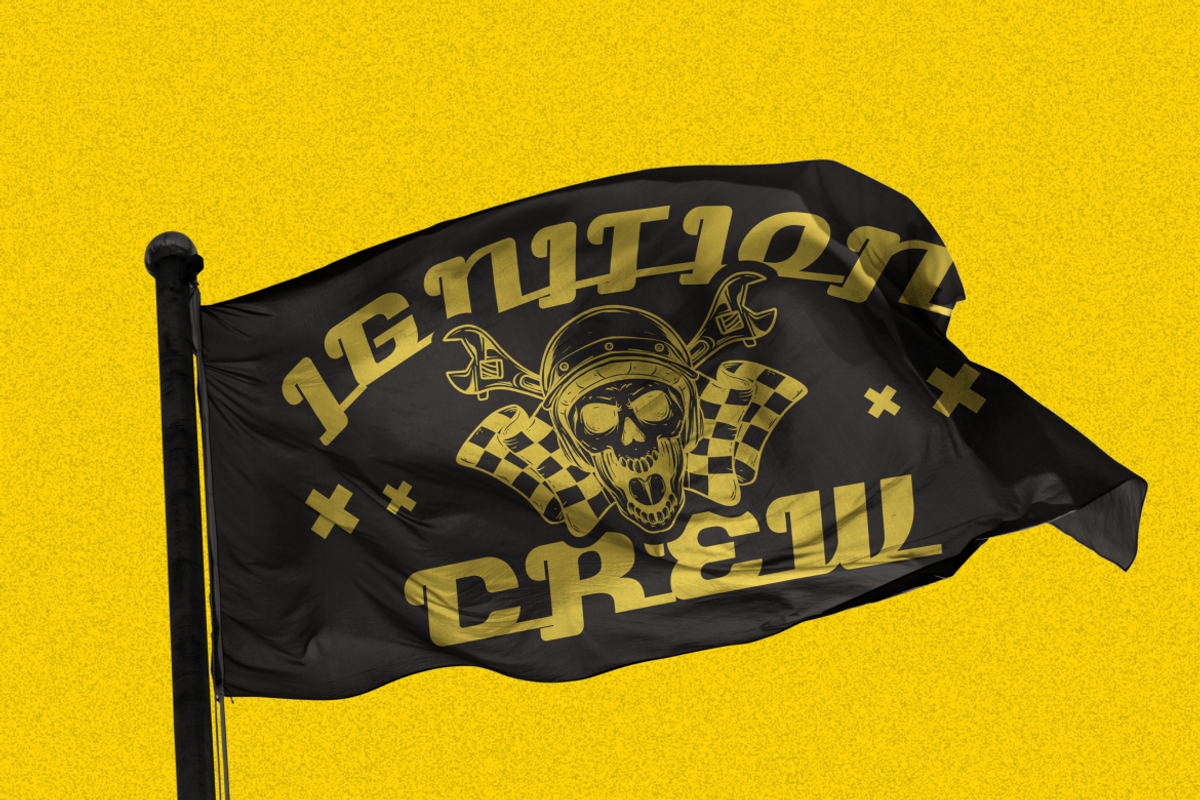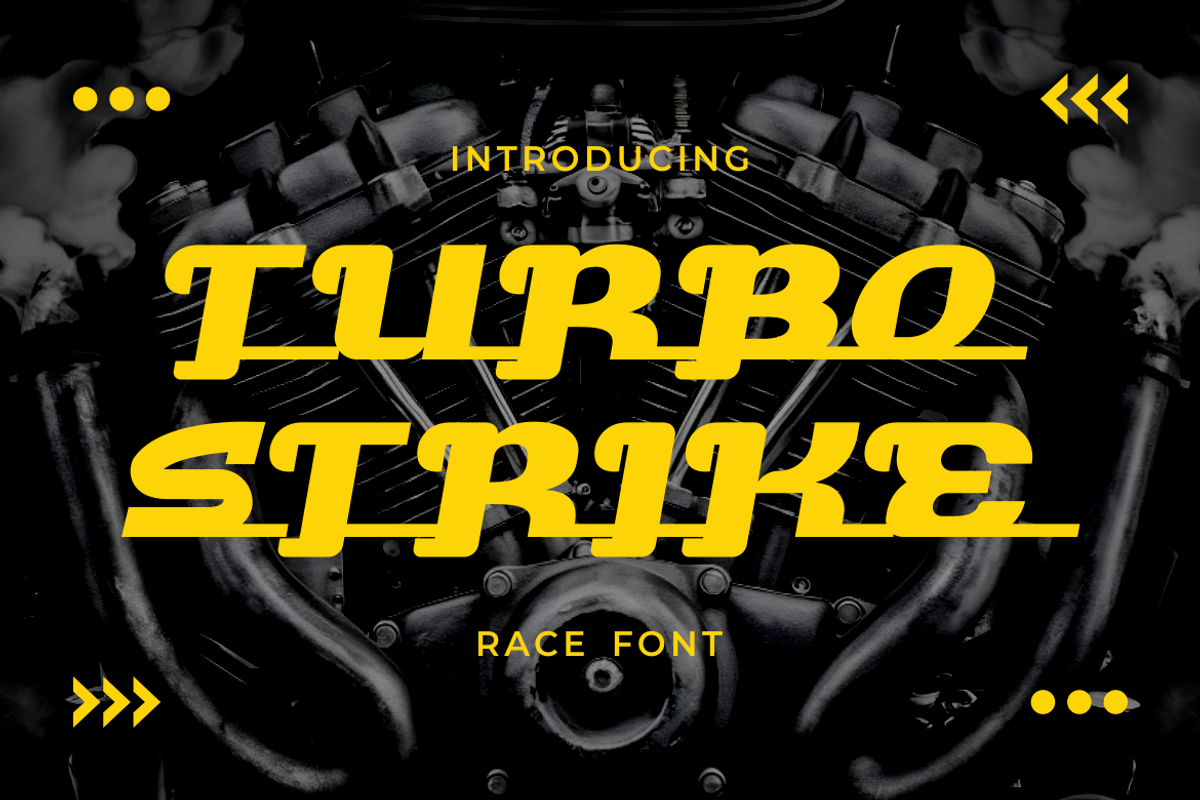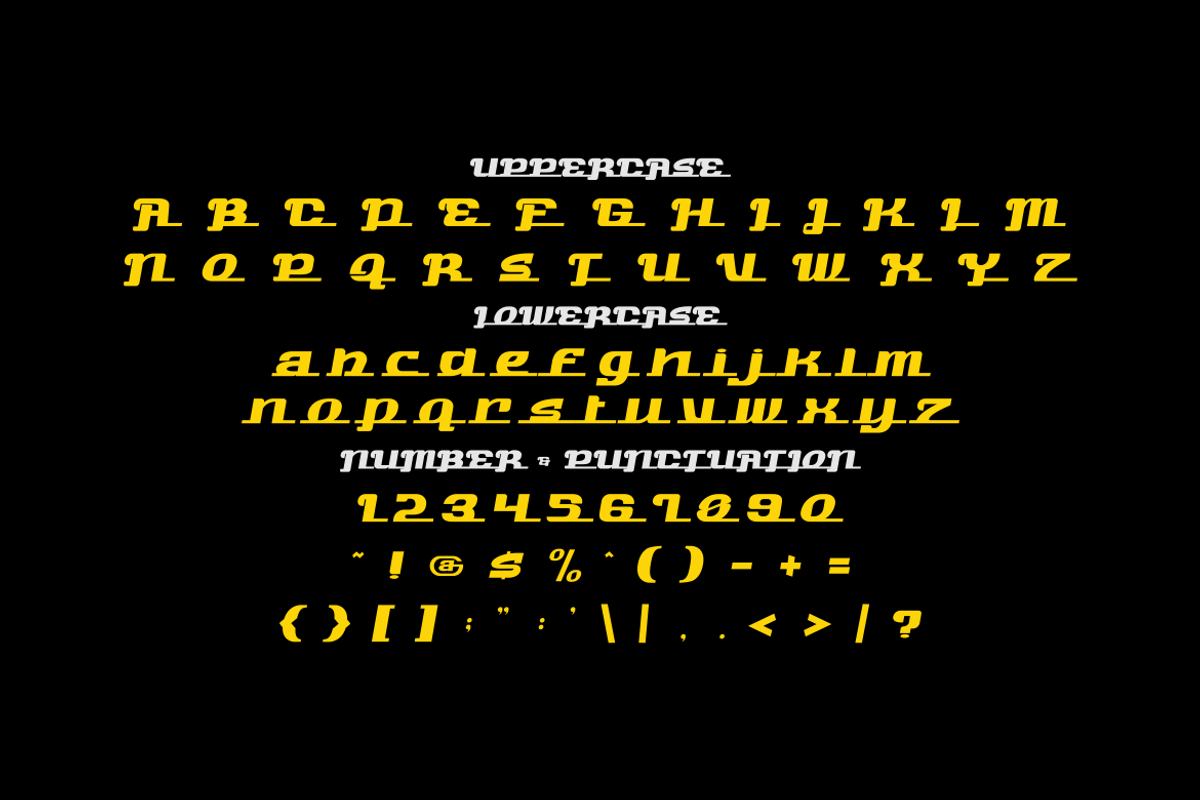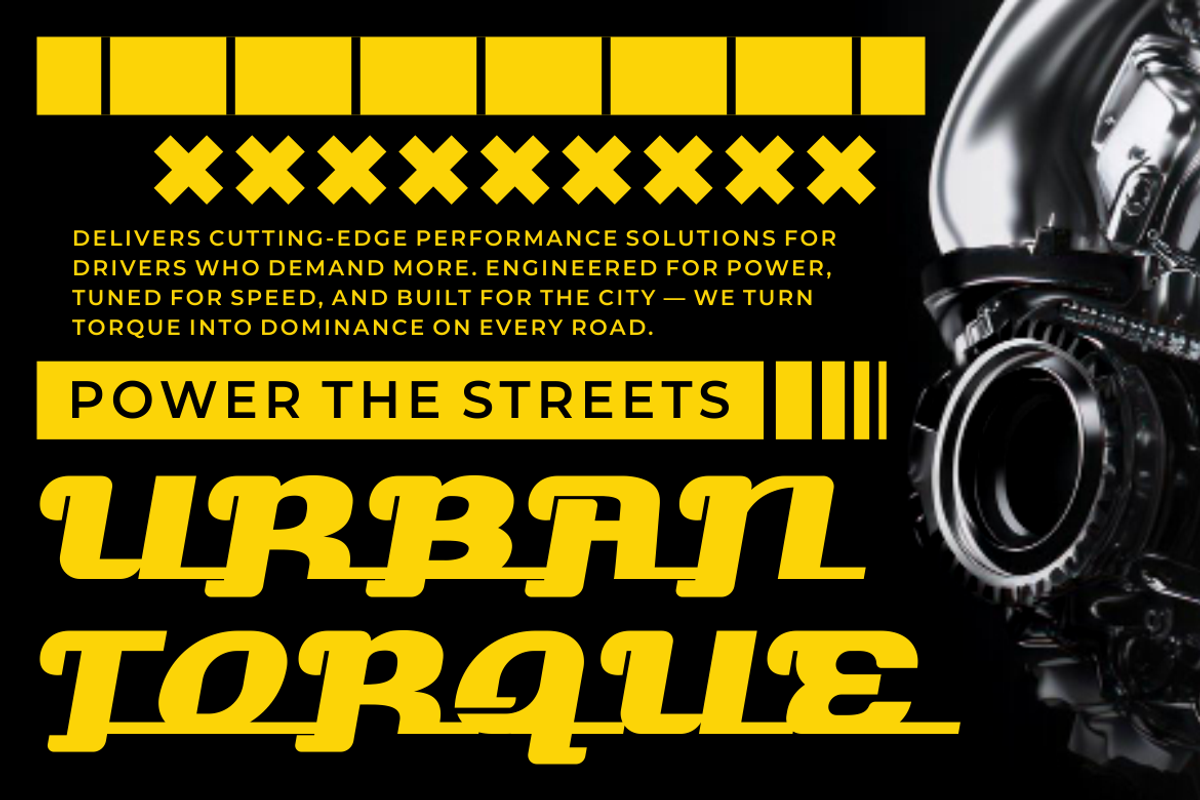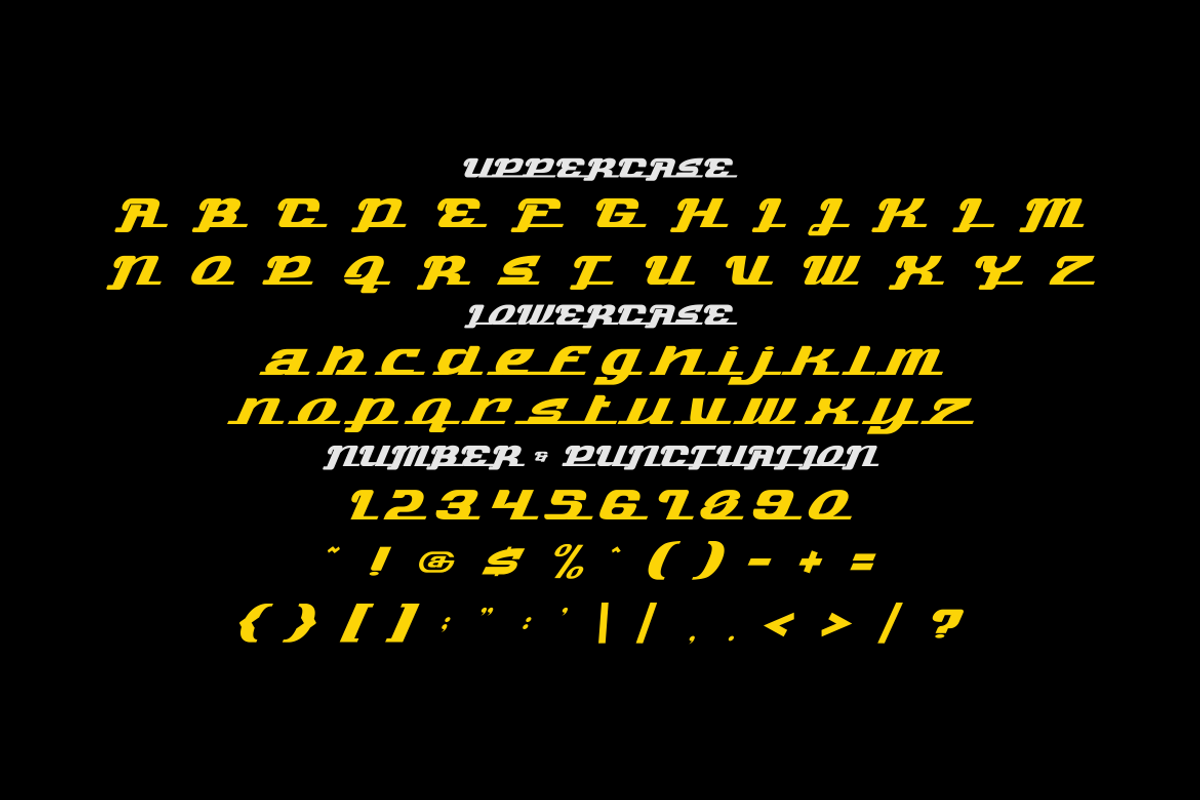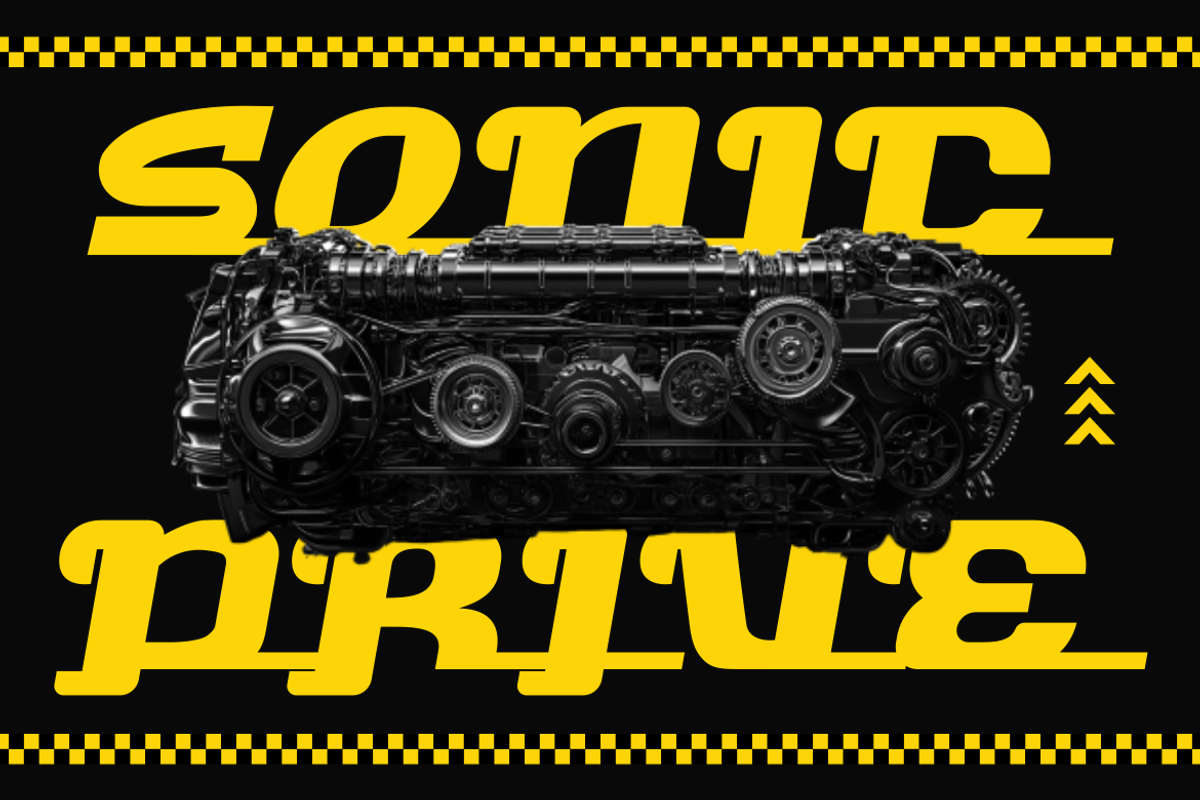
Turbo Strike Race Font
Turbo Strike Race Font delivers a bold racing atmosphere with sharp italic movement and aggressive sporty construction. The characters feature wide proportions, thick strokes, rounded corners, and extended horizontal cuts that create a strong sense of acceleration. Every letter leans forward with dynamic motion, giving headlines a fast and competitive appearance. The smooth curves combine with geometric forms to produce a clean motorsport style that feels modern, mechanical, and energetic. This typeface captures the spirit of racing culture, street performance, and garage identity without losing readability. The strong slanted structure works perfectly for automotive branding, racing team logos, workshop signage, gaming titles, motorsport events, and urban sport campaigns. Use this font for logos, branding, posters, magazine titles, product packaging, advertising, stickers, YouTube thumbnails, social media graphics, movie titles, and bold display typography projects.
Turbo Strike Race Font fits projects that demand speed, power, and mechanical energy. The letterforms create visual momentum through aerodynamic cuts and connected underline details. Its sporty construction makes every composition feel active, competitive, and performance-focused. The font style blends modern racing aesthetics with retro motorsport inspiration, making it flexible for many creative industries. This font suits automotive businesses, tuning garages, drifting events, racing cafés, gaming brands, technology promotions, and energy drink packaging. It also works strongly for esports graphics, promotional banners, headline typography, and custom logo identities. The thick display structure remains clear in large formats while maintaining strong visual impact. Multilingual support and complete punctuation allow designers to build bold branding systems with consistent speed-inspired typography across digital and print projects.